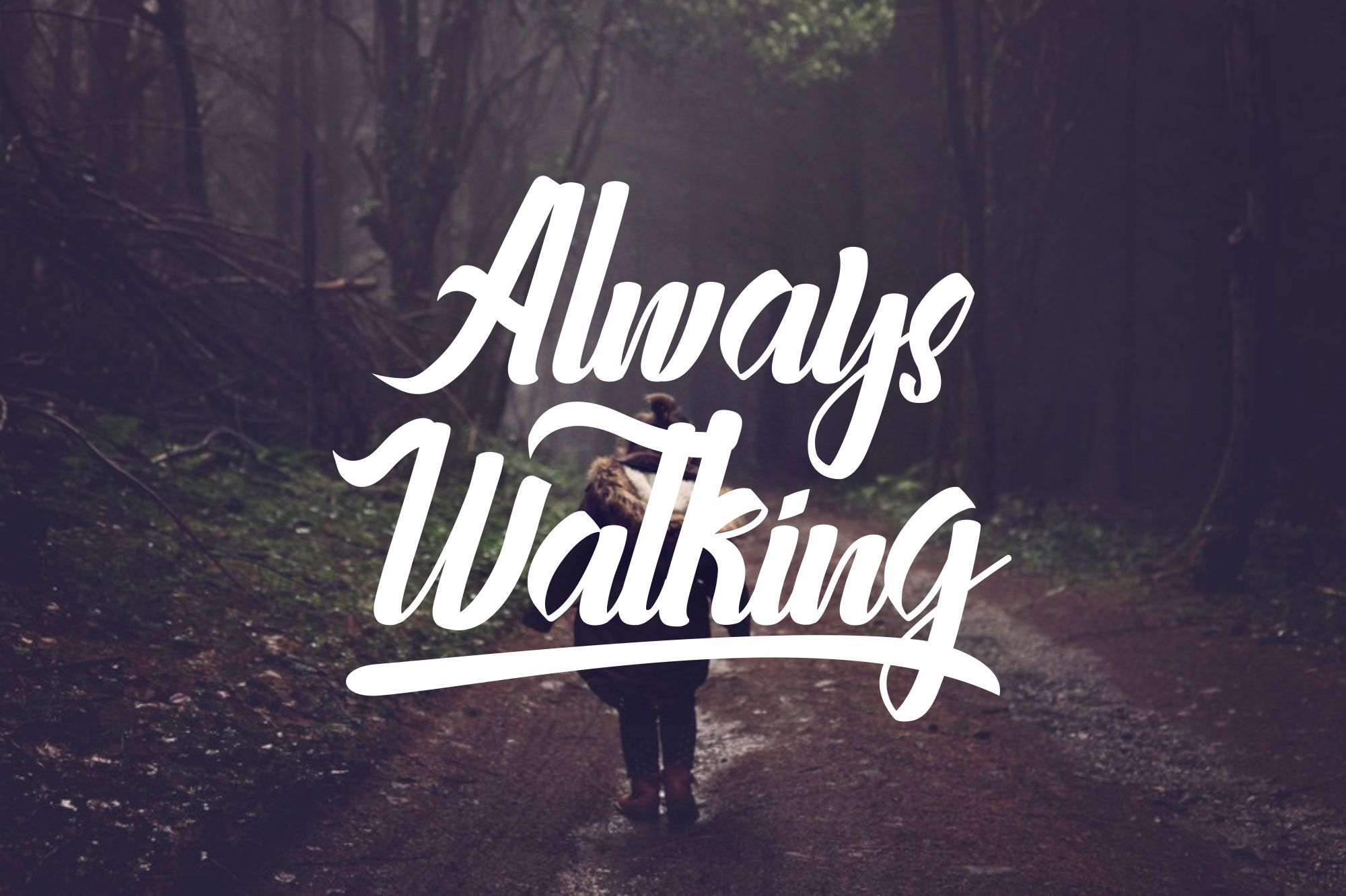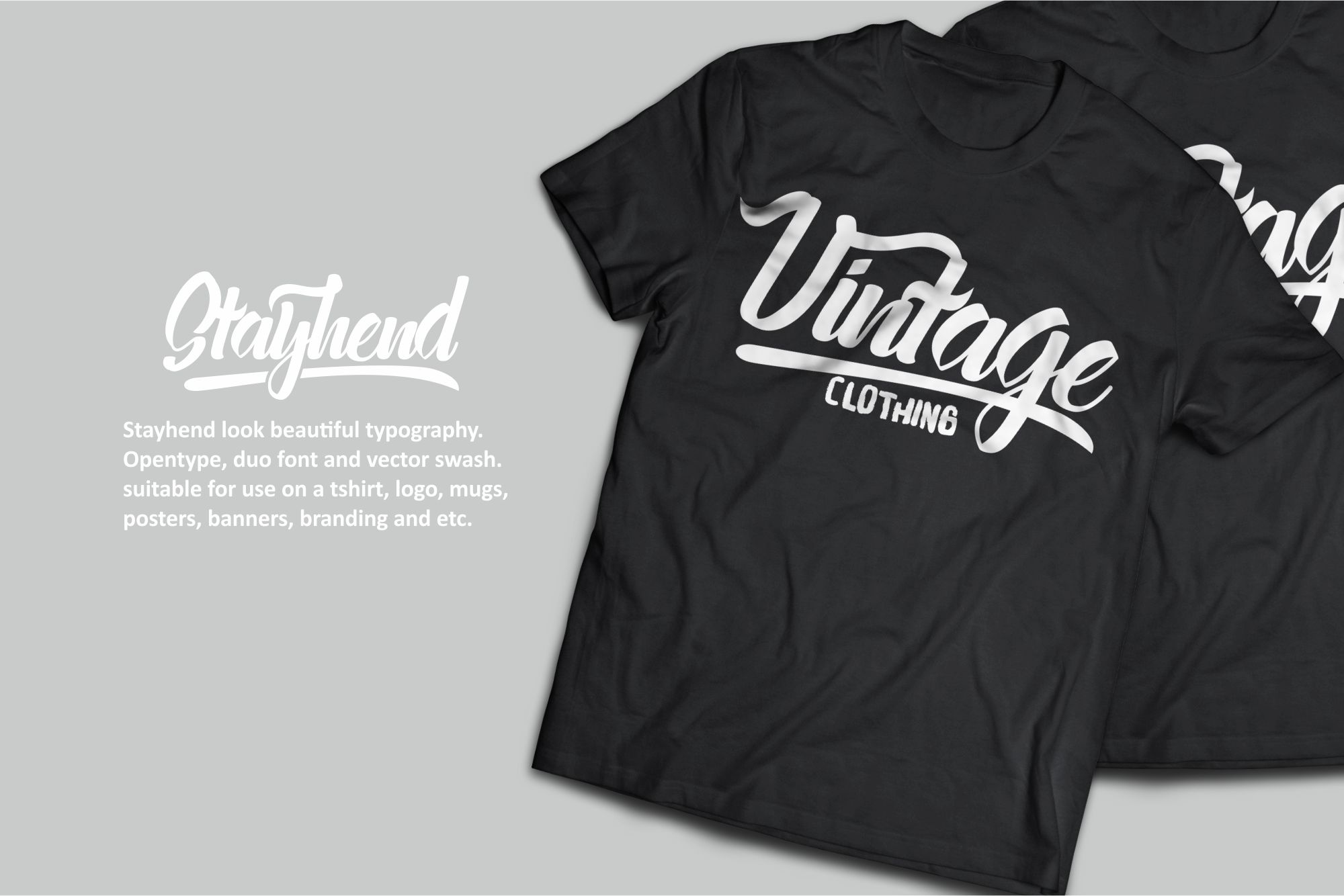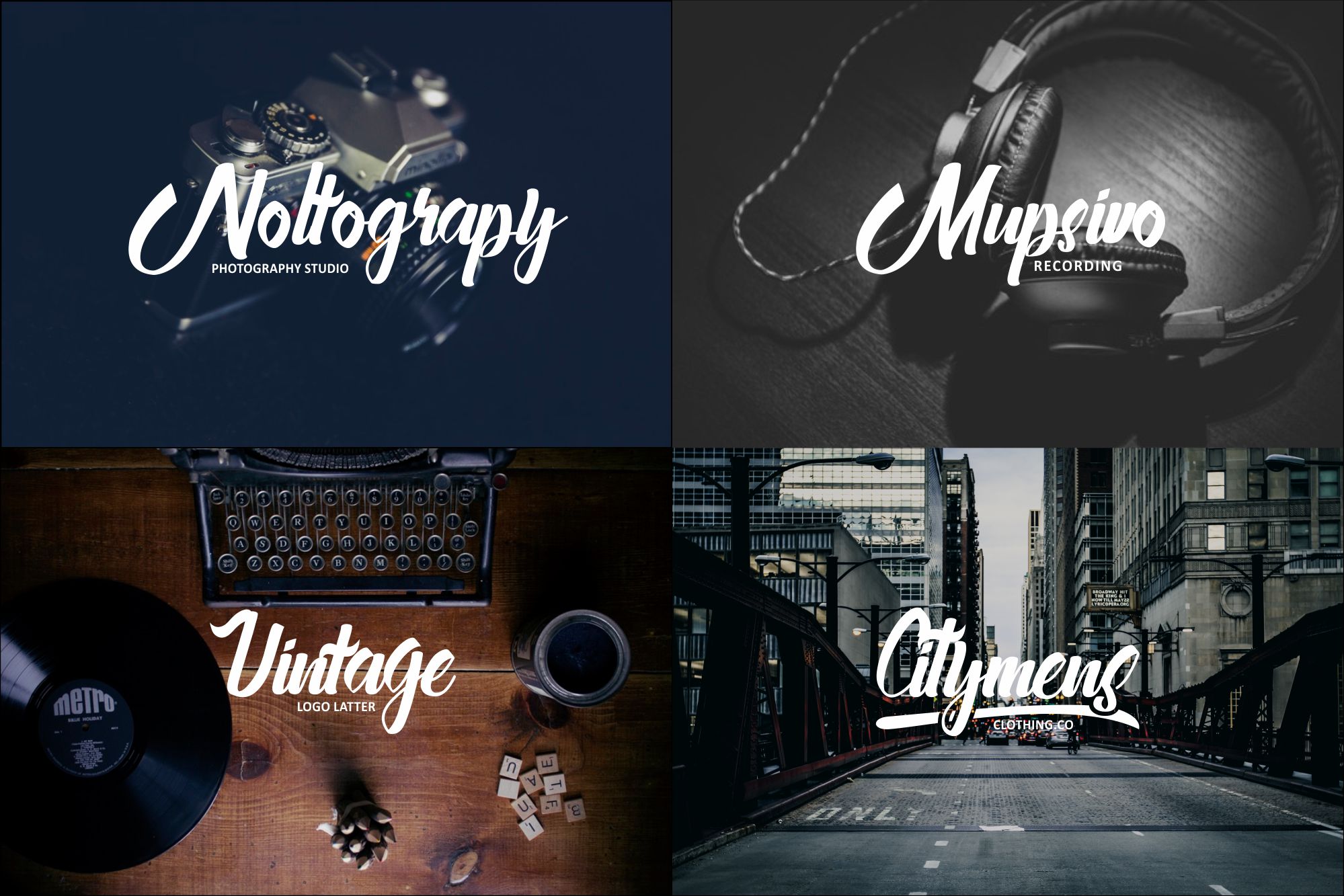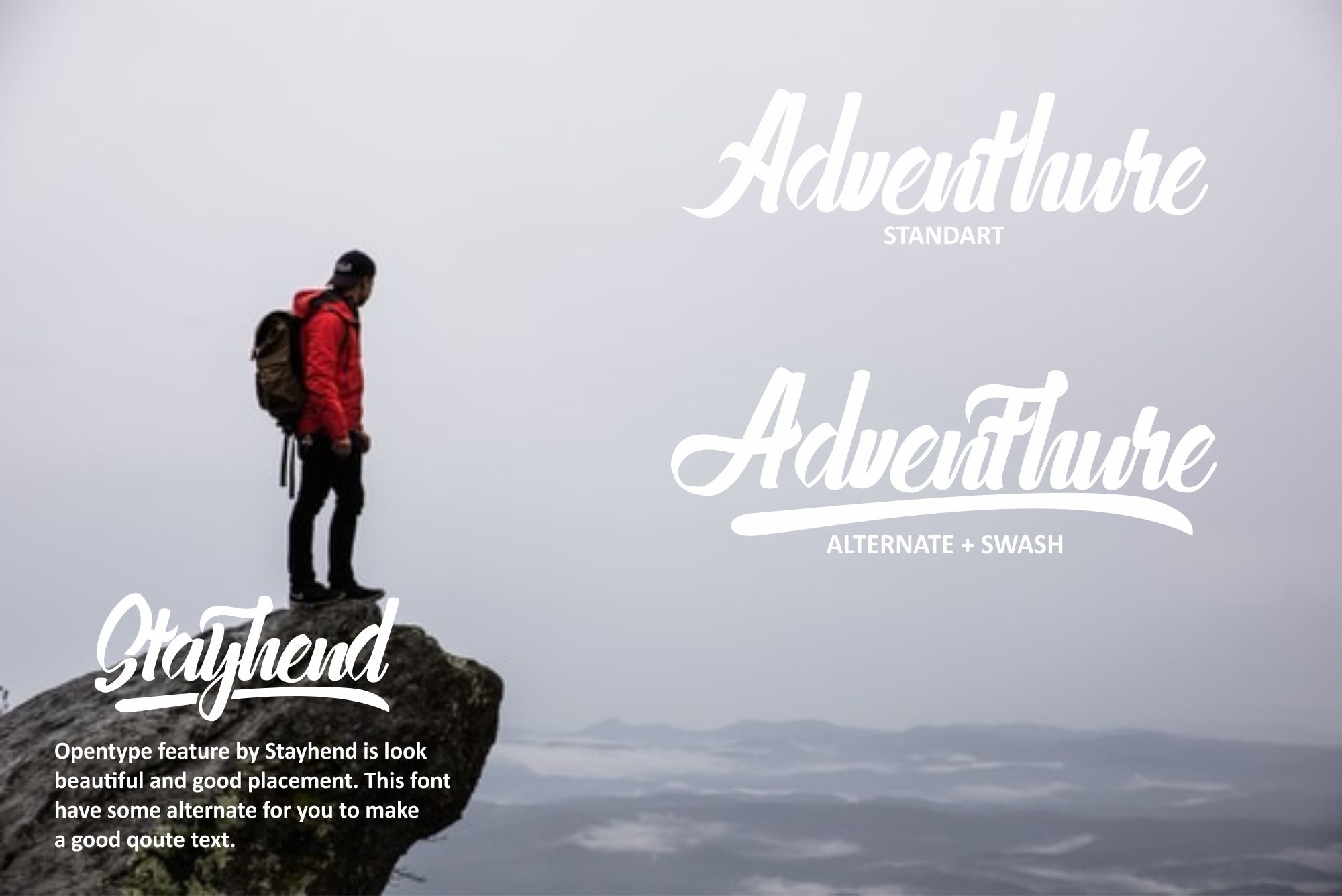
HomeScript FontsStayhend Font Script Fonts Stayhend Font FacebookXPinterestWhatsApp Stayhend Font Poster 2 Stayhend Font Poster 3 Stayhend Font Poster 4 Stayhend Font Poster 5 About Stayhend Font Stayhend is a playful brush-based script. It’s an expressive font that is great for branding. DOWNLOAD ON CREATIVE FABRICAThis font is sold and delivered by Creative Fabrica. Font Canyon may earn a commission if you buy through this link. People also explored Myntraya Font Markisa Sugar Font Love Things Font Wonderstruct Font Sweet Lemonade Font Pamson Font Valentina Monogram Font Gabilo Font The Family Home Font 293 0 TagsStayhend Font Previous articleHollybear FontNext articleRolingline Font LEAVE A REPLY Cancel reply Comment: Please enter your comment! Name:* Please enter your name here Email:* You have entered an incorrect email address! Please enter your email address here Website: Save my name, email, and website in this browser for the next time I comment. Personal Use Free Rosebirth Personal Use Free Read more about this font Monogram Veg Personal Use Free Read more about this font Cinderella Personal Use Free Read more about this font Sunshine Tropical Font Personal Use Free Read more about this font BLOG Modern Sans-Serif Fonts That Brands Love in 2025 In 2025, modern sans-serif fonts remain a top choice for brands looking to project clarity, professionalism, and... Using Fonts in Digital Marketing: Tips to Strengthen Your Brand Identity Top 7 Google Fonts Alternatives for Faster and Privacy-Friendly Web Design (2025) How to Install and Use Fonts on Windows, macOS, and Web Projects